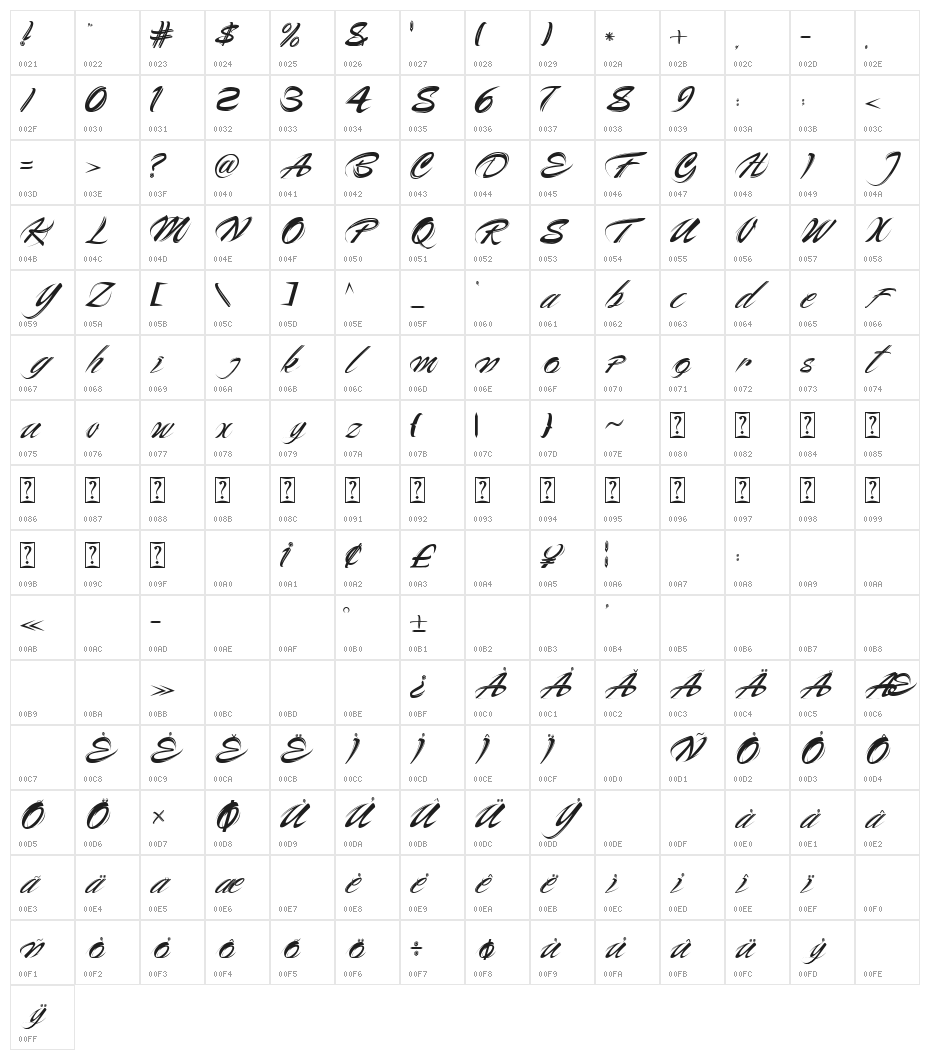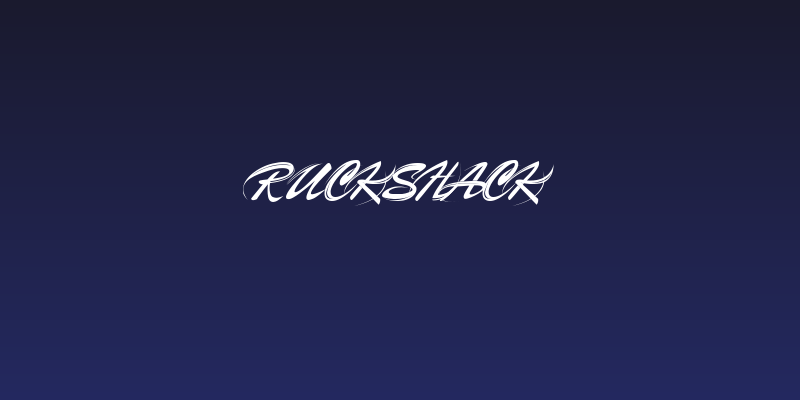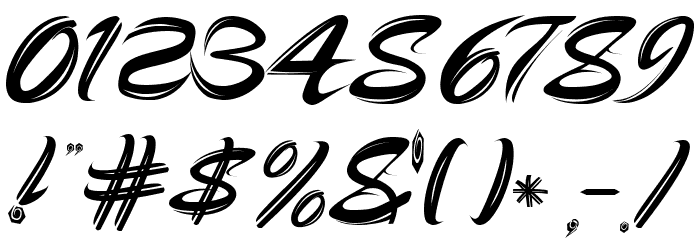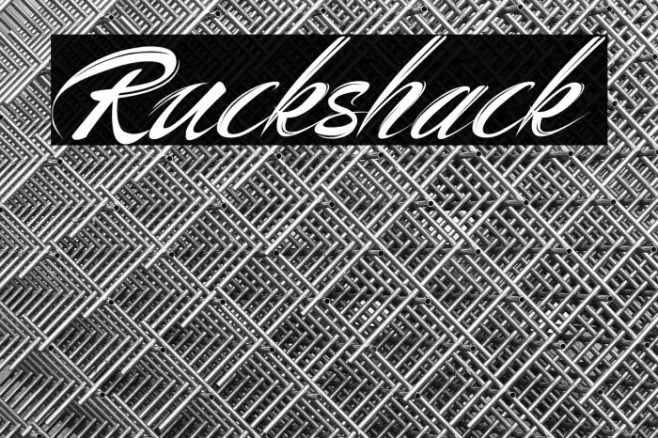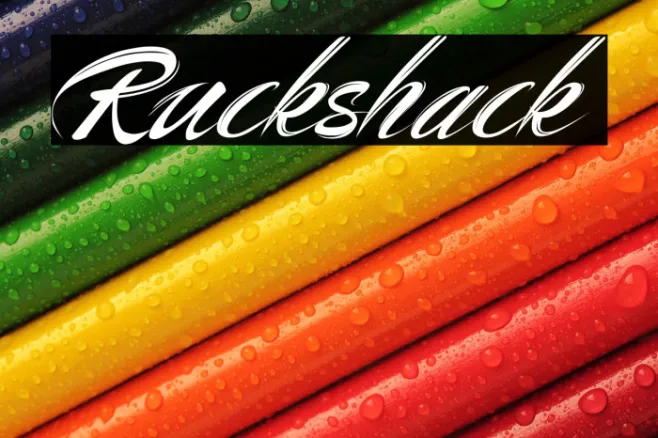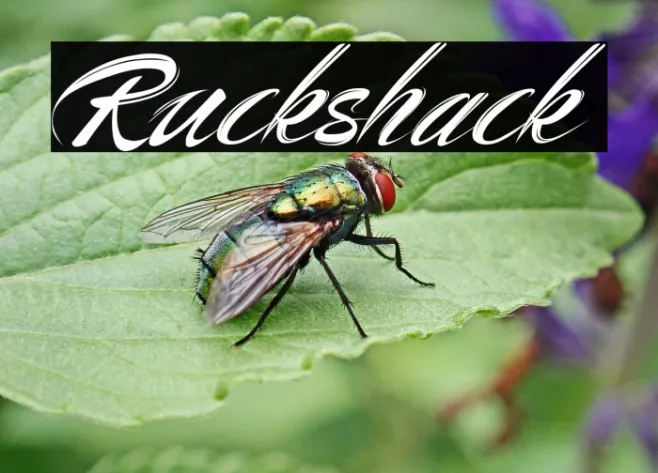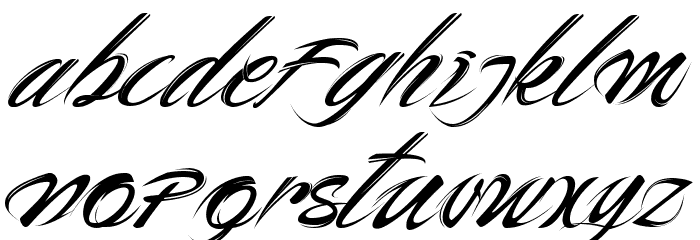
Ruckshack Font
Ruckshack Description
This font features a dynamic and expressive script style, characterized by its fluid, cursive strokes and elegant flourishes. The letters are interconnected, creating a sense of movement and flow, which is enhanced by the varying thickness of the strokes. The uppercase letters are bold and prominent, while the lowercase letters maintain a consistent rhythm and balance. The numerals and special characters are designed to complement the overall aesthetic, with a similar emphasis on curves and fluidity. This font exudes a sense of sophistication and creativity, making it ideal for projects that require a touch of elegance and flair.